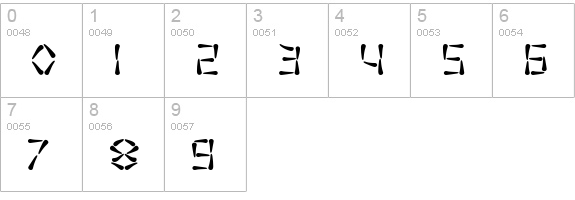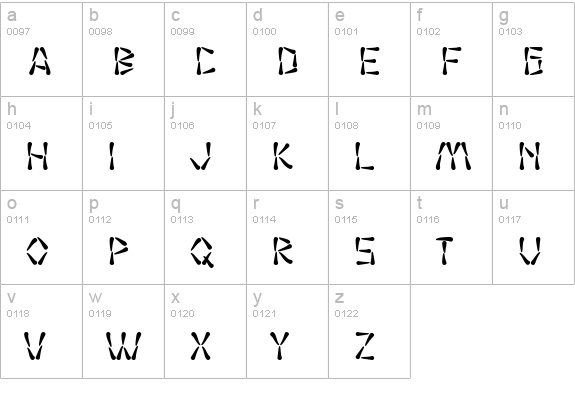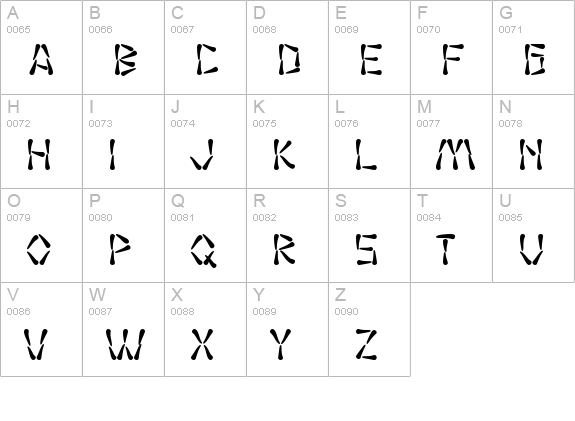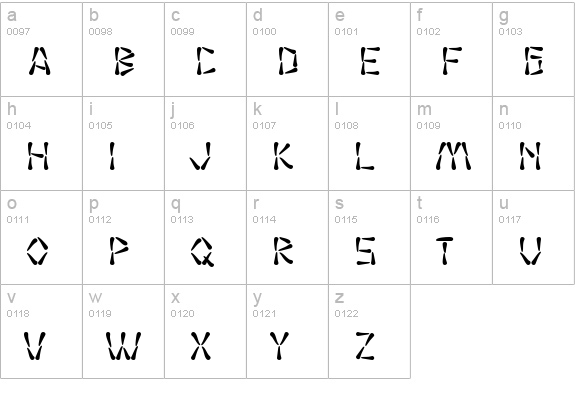
SF Wasabi Font Details
SF Wasabi is a contemporary and versatile font that effortlessly combines modern aesthetics with a touch of uniqueness. This font is the perfect choice for designers who seek to infuse their projects with a sense of style and sophistication. With its clean lines and well-defined shapes, SF Wasabi captures attention and makes a lasting impression. What makes SF Wasabi even more remarkable is that it is available for free download at FontsMarket.com. This means that designers and enthusiasts alike can easily access this exceptional font without any cost. Whether you are working on a personal project or a professional endeavor, SF Wasabi offers a high-quality and visually appealing solution for all your typography needs. With its wide range of weights and styles, SF Wasabi provides endless possibilities for creative expression. Whether you are designing a logo, a website, or a printed publication, this font will effortlessly adapt to your vision, enhancing the overall aesthetic of your design. The legibility of SF Wasabi is exceptional, making it a reliable choice for various purposes. The characters are meticulously designed to ensure optimal readability, even at small sizes. This makes SF Wasabi an ideal choice for body text, headlines, and any other text elements that require clarity and elegance. SF Wasabi is not just a font; it is a powerful tool that empowers designers to bring their creative visions to life. Its versatility, combined with its timeless appeal, makes it a must-have for any designer's toolkit. And the fact that it is freely available for download at FontsMarket.com makes it even more irresistible. Don't miss the opportunity to elevate your designs with SF Wasabi today!